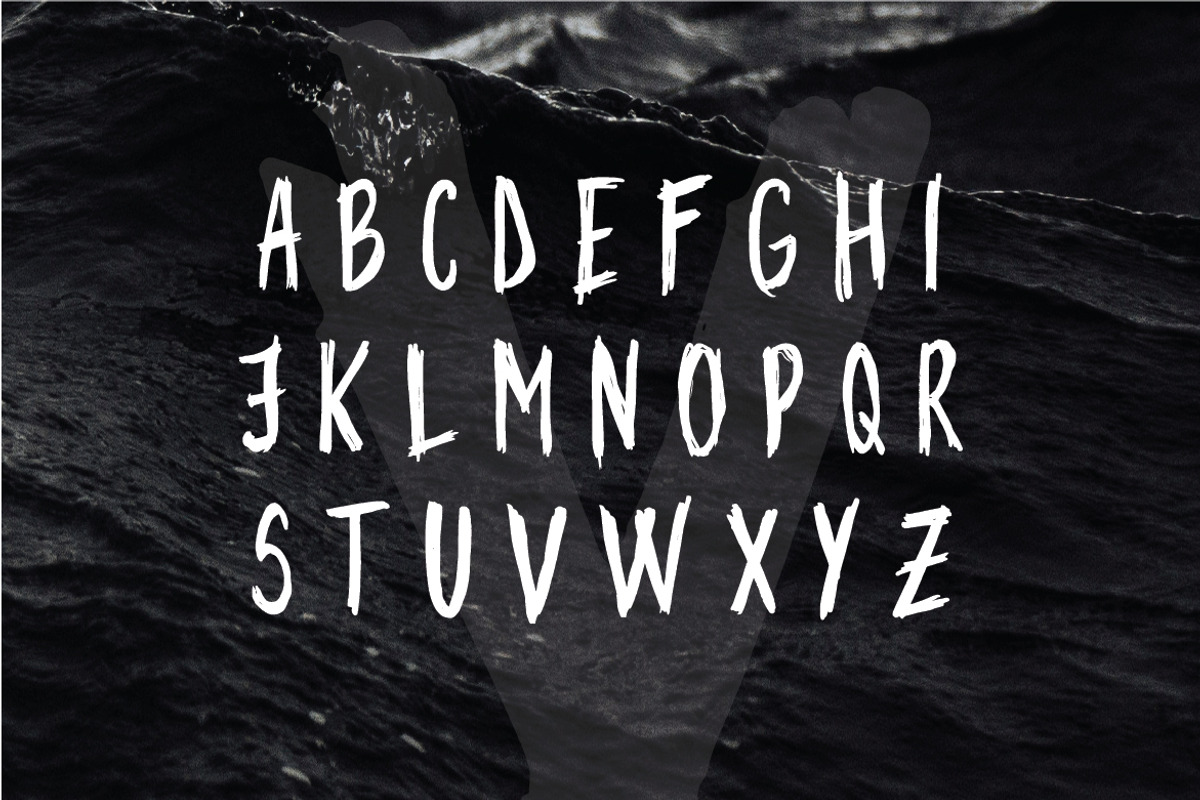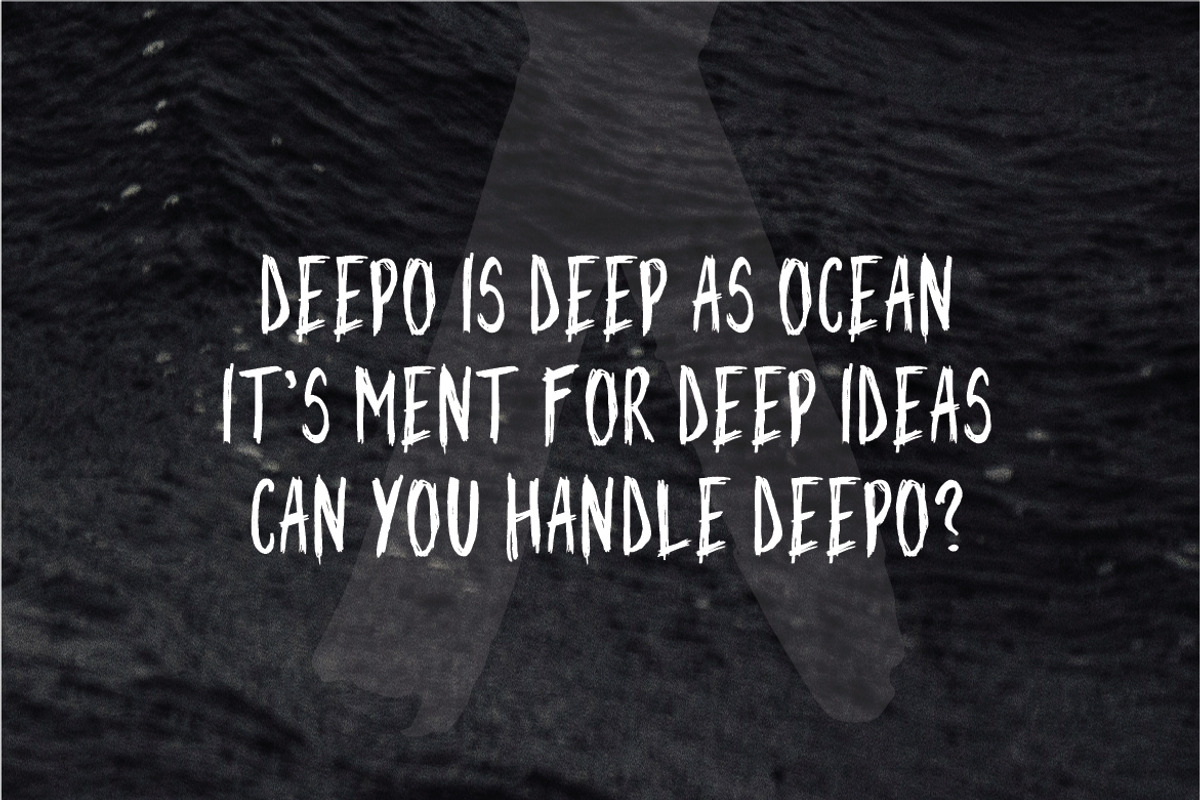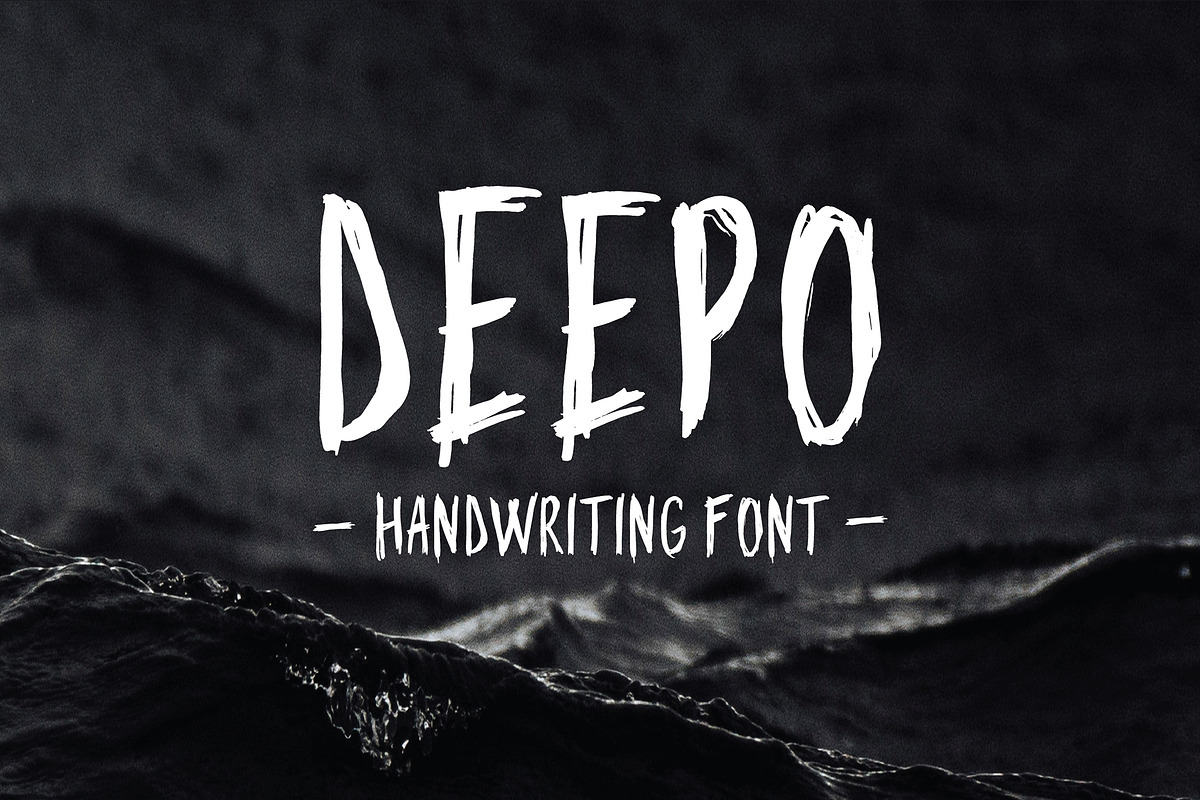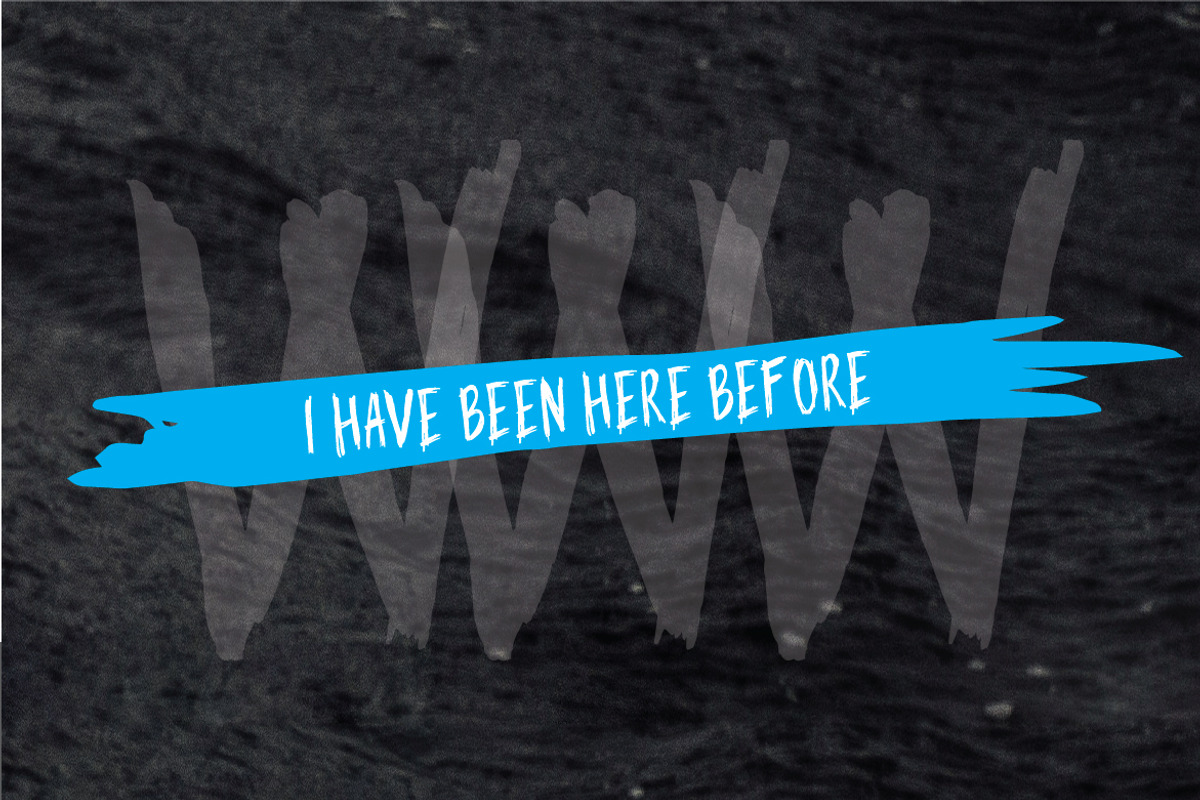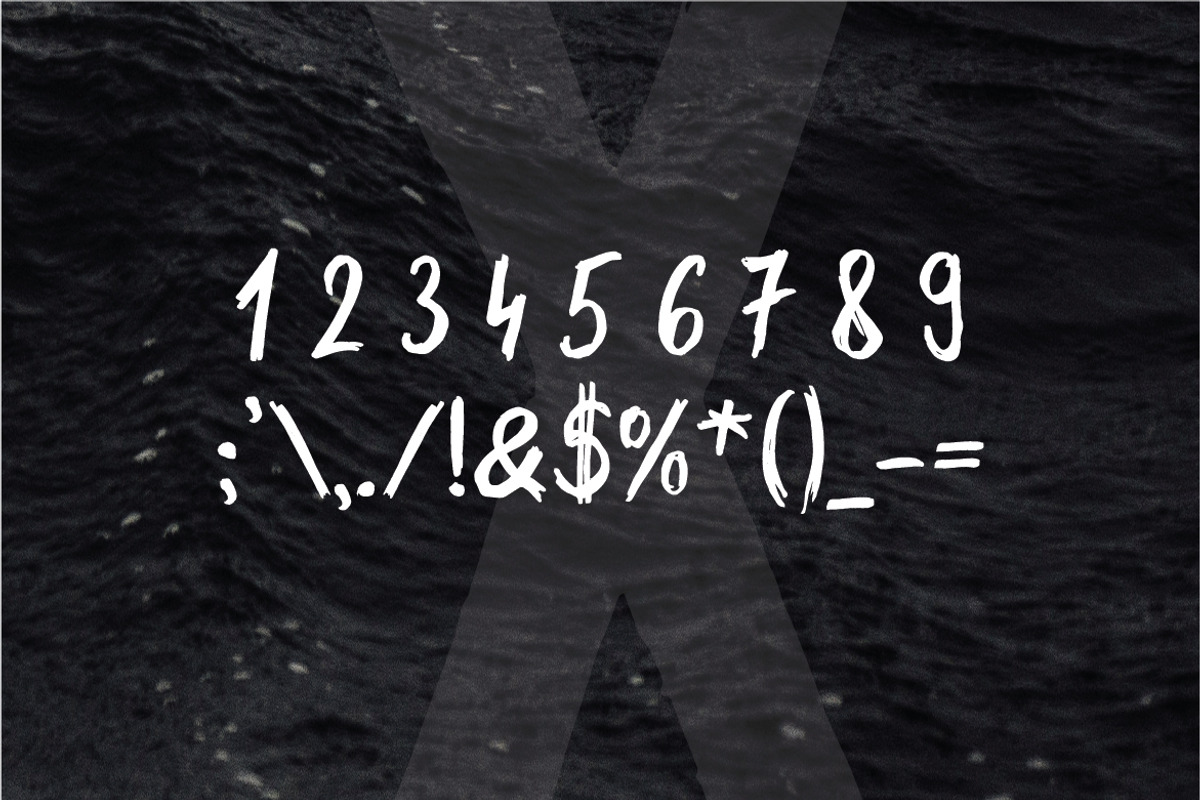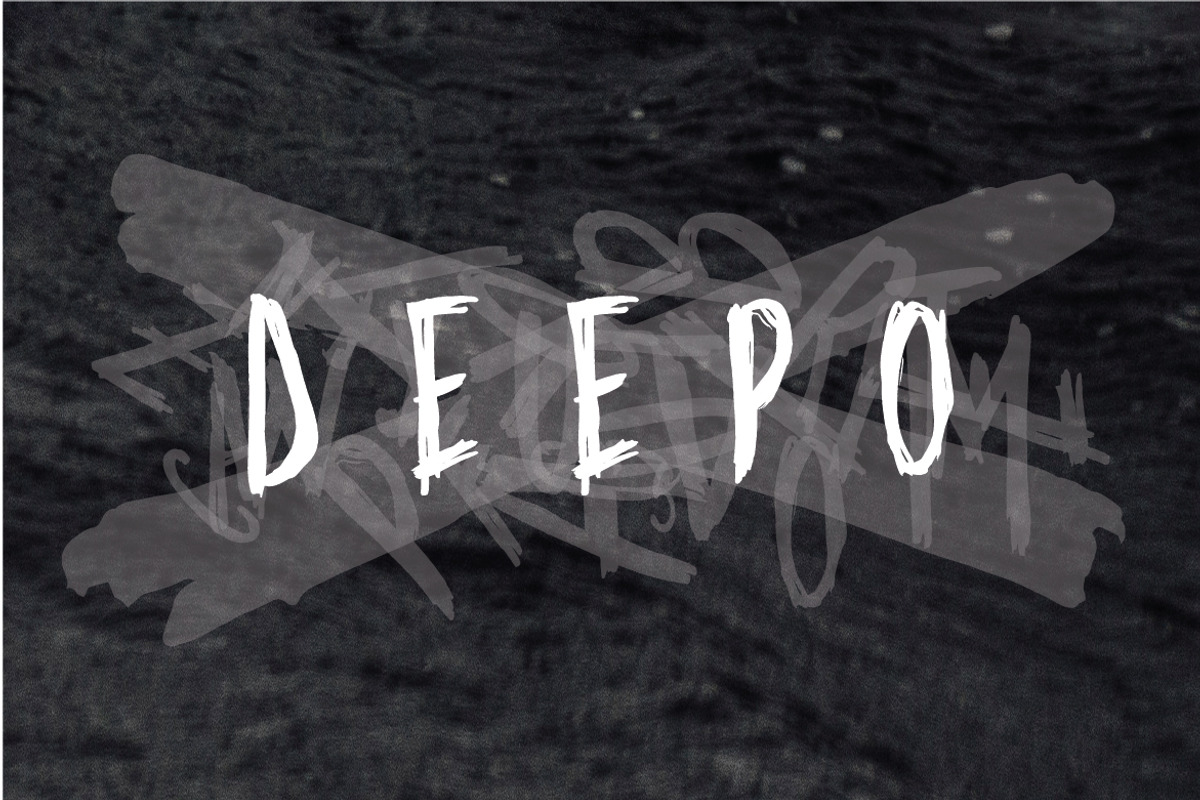
Deepo - Handwriting Font
Deepo - Handwriting Font by Wild Ones is a font selected for branding, posters, packaging, typography.
Deepo - Handwriting Font by Wild Ones fits naturally into Branding, posters, packaging, typography.